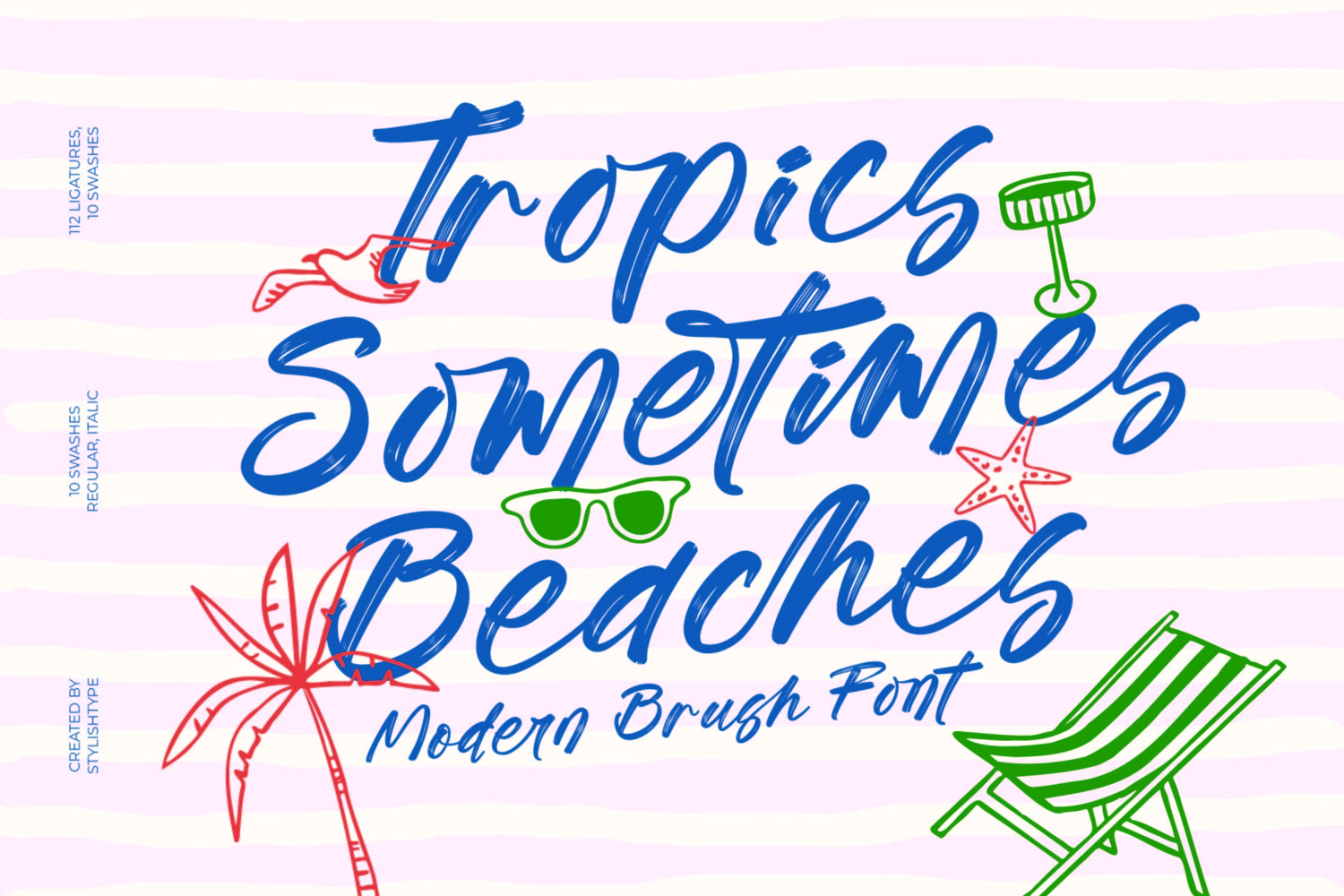
Tropics Sometimes Beaches - Modern Brush Font
Tropics Sometimes Beaches
Tropics Sometimes Beaches Italic
Inject immediate, irresistible character into your designs with Tropics Sometimes Beaches - Modern Brush Font, a highly expressive script typeface designed to evoke the warmth and spontaneity of a hand-painted sign. This font captures a relaxed, carefree attitude, making it the definitive choice for projects demanding a touch of authentic brushwork and high-impact style. The varying weights and textures within the strokes provide a genuine, non-digital feel, ensuring your creative output resonates with playful energy and genuine artistry.